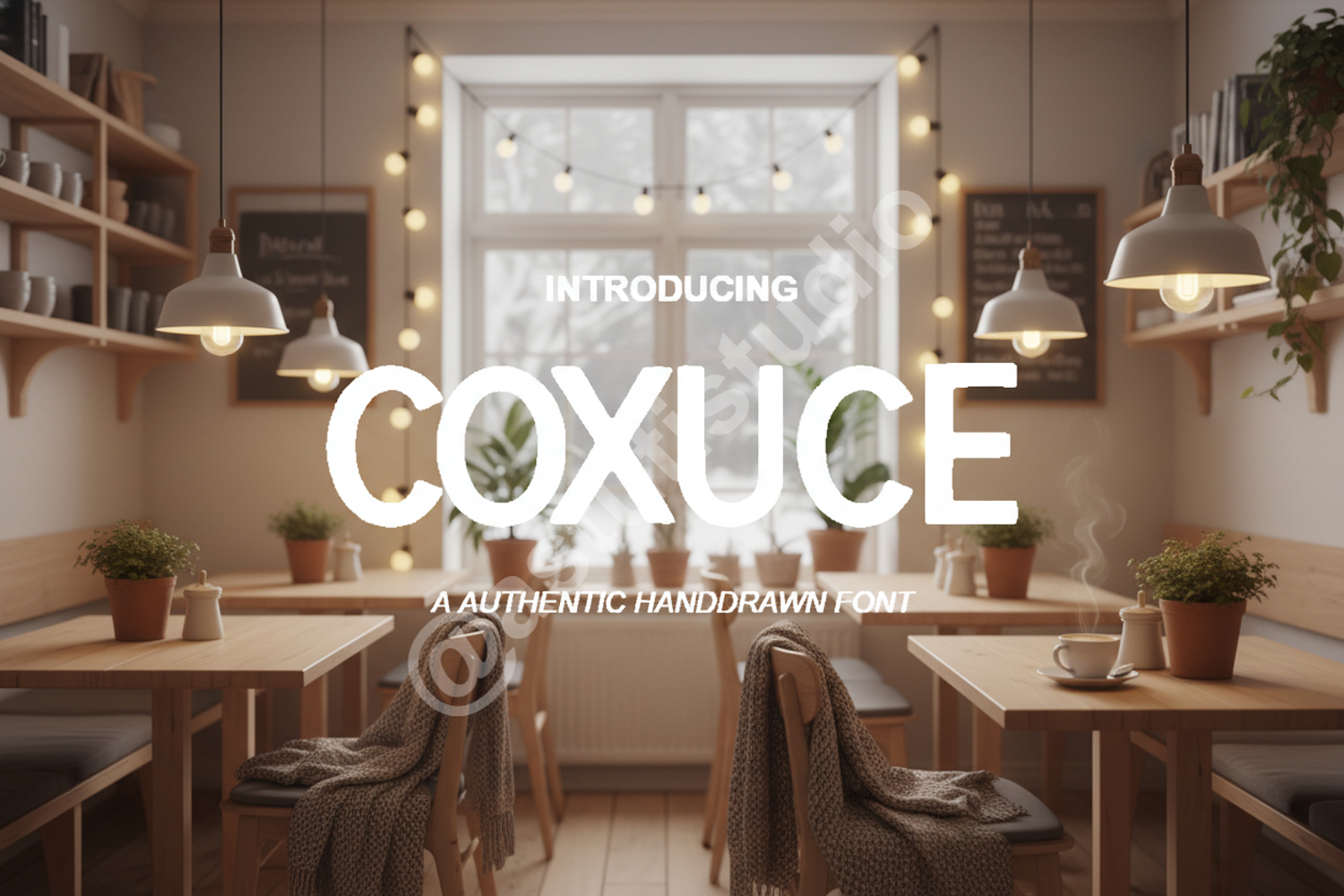
Coxuce - Modern Elegant Display Typeface
Coxuce
Introduction:
Elevate your creative projects with Coxuce, a premium display typeface designed for sophistication and versatility. This font blends modern aesthetics with timeless elegance, making it an essential addition to any designer's toolkit. Whether you are aiming for a high-end luxury feel or a clean minimalist look, Coxuce delivers exceptional clarity and style to every character.
- Full character set including uppercase and lowercase
- Comprehensive numbers and punctuation
- Multilingual support for global projects
Optimized Use Cases:
- Professional Branding and Corporate Identity
- Elegant Wedding Invitations and Stationery
- High-End Editorial Layouts and Magazine Headers
- Minimalist Logo Design and Typography
- Social Media Graphics and Premium Marketing Materials